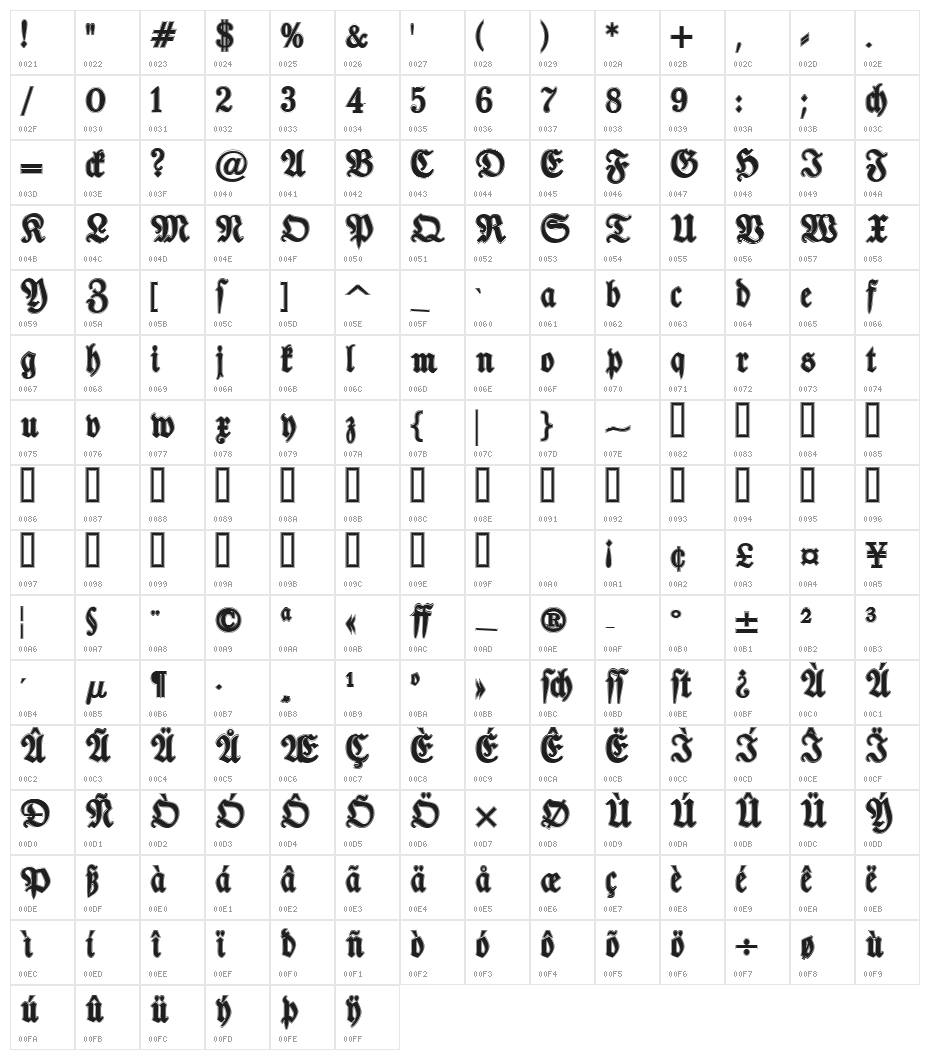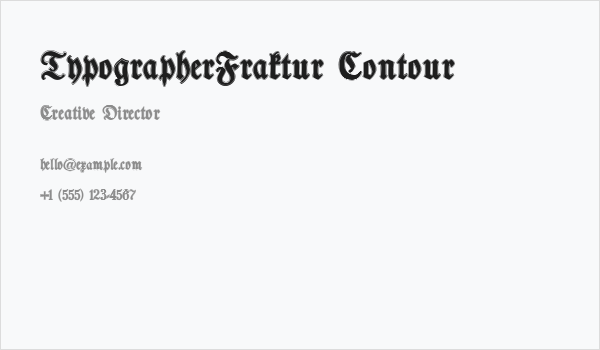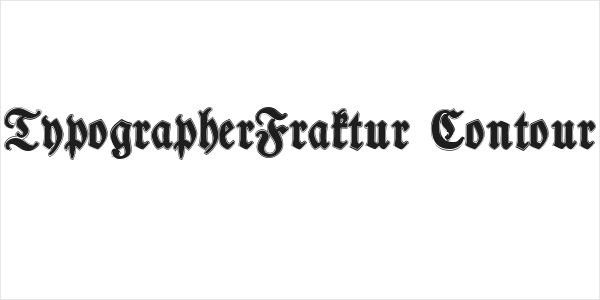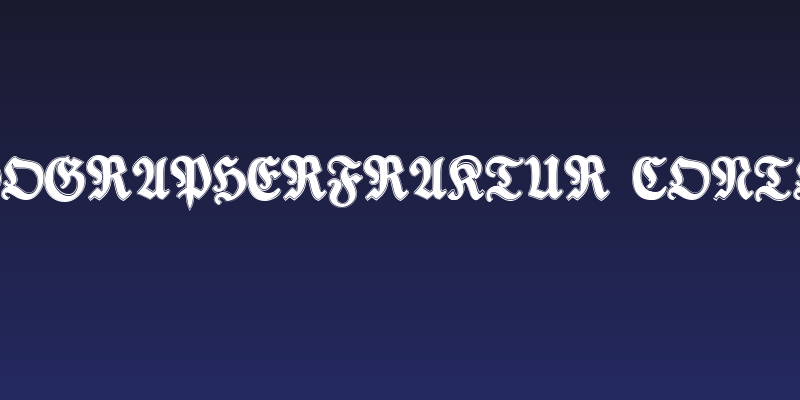
TypographerFraktur Contour Font
TypographerFraktur Contour Description
This font features a bold and intricate design, reminiscent of traditional blackletter styles. The characters are adorned with elaborate contours and sharp edges, creating a striking and dramatic appearance. The uppercase letters are particularly ornate, with sweeping curves and pointed terminals. The lowercase letters maintain the same level of detail, ensuring consistency throughout the typeface. Numbers and special characters are equally decorative, making this font suitable for projects that require a touch of elegance and historical flair. The overall aesthetic is both vintage and gothic, capturing the essence of medieval script with a modern twist.
| Overall Style | Vintage, Gothic |
| Use Case | Logos, Headlines, Decorative purposes |
| Proposed Projects | Ideal for use in branding, logos, posters, book covers, and any project seeking a vintage or gothic aesthetic. |